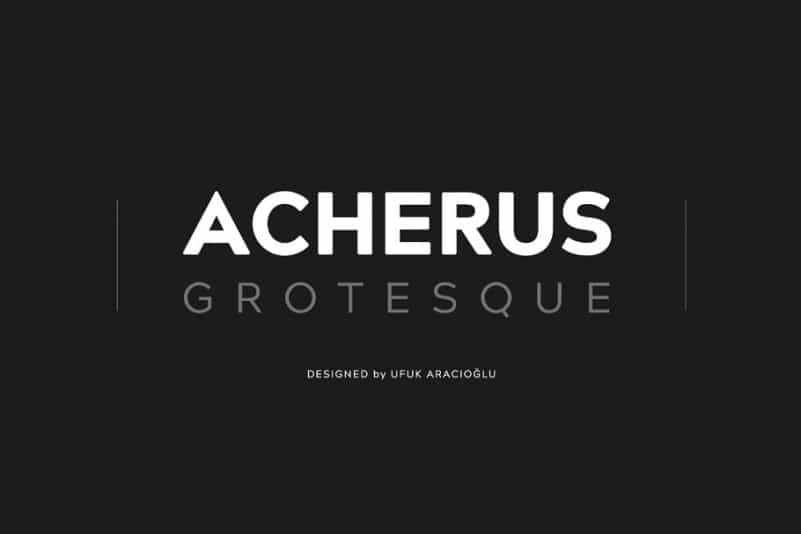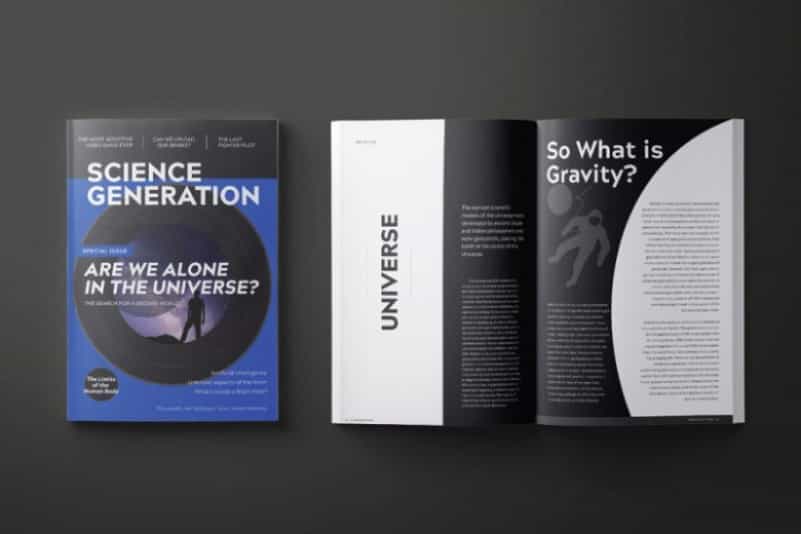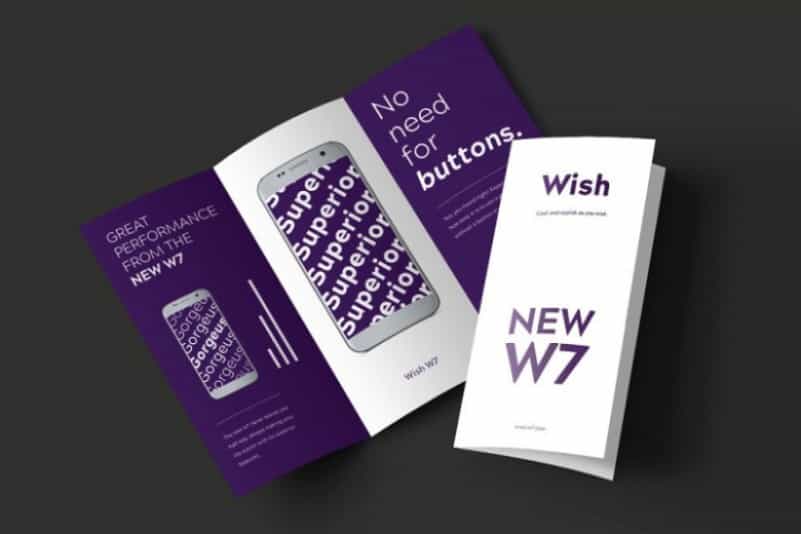
Horizon Type is happy to present you a new sans serif typeface family Acherus Grotesque, designed by Ufuk Aracioglu and released under their Horizon Type company. Acherus Grotesque Font Family, the newest offering from Horizon Type with 16 styles and a number of versions to choose from is an round sans serif font family that draws its inspiration from geometric shapes.